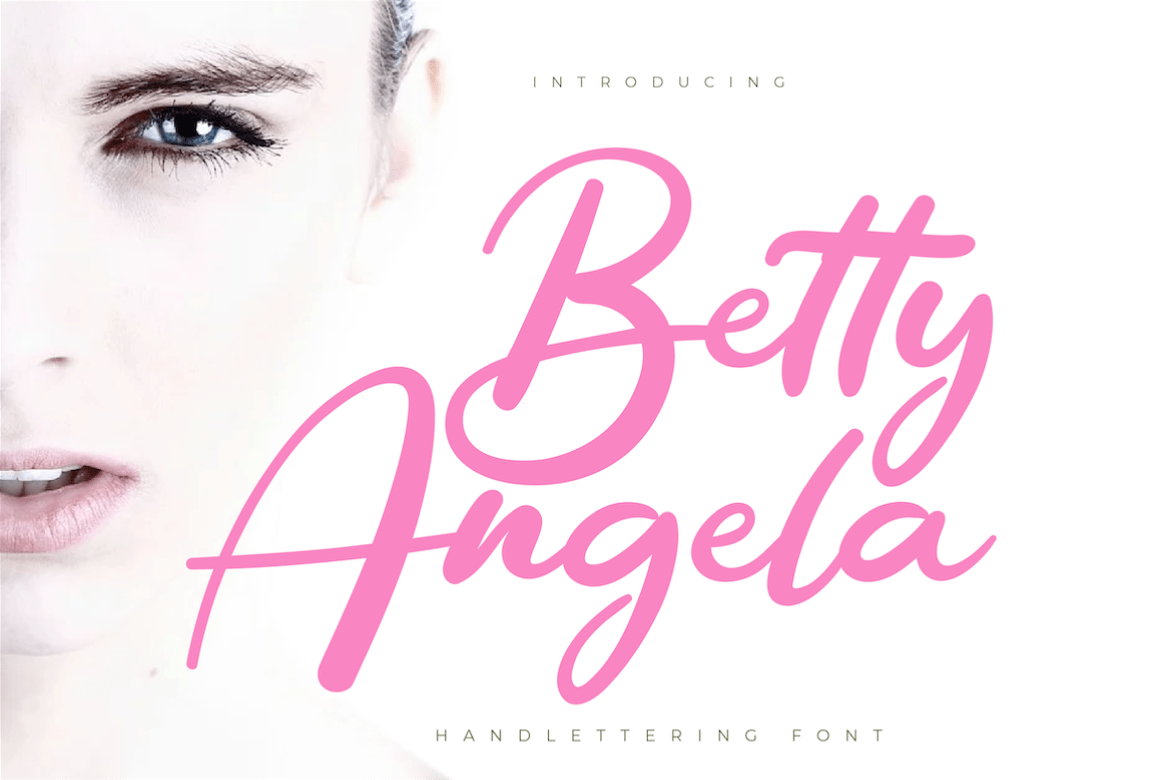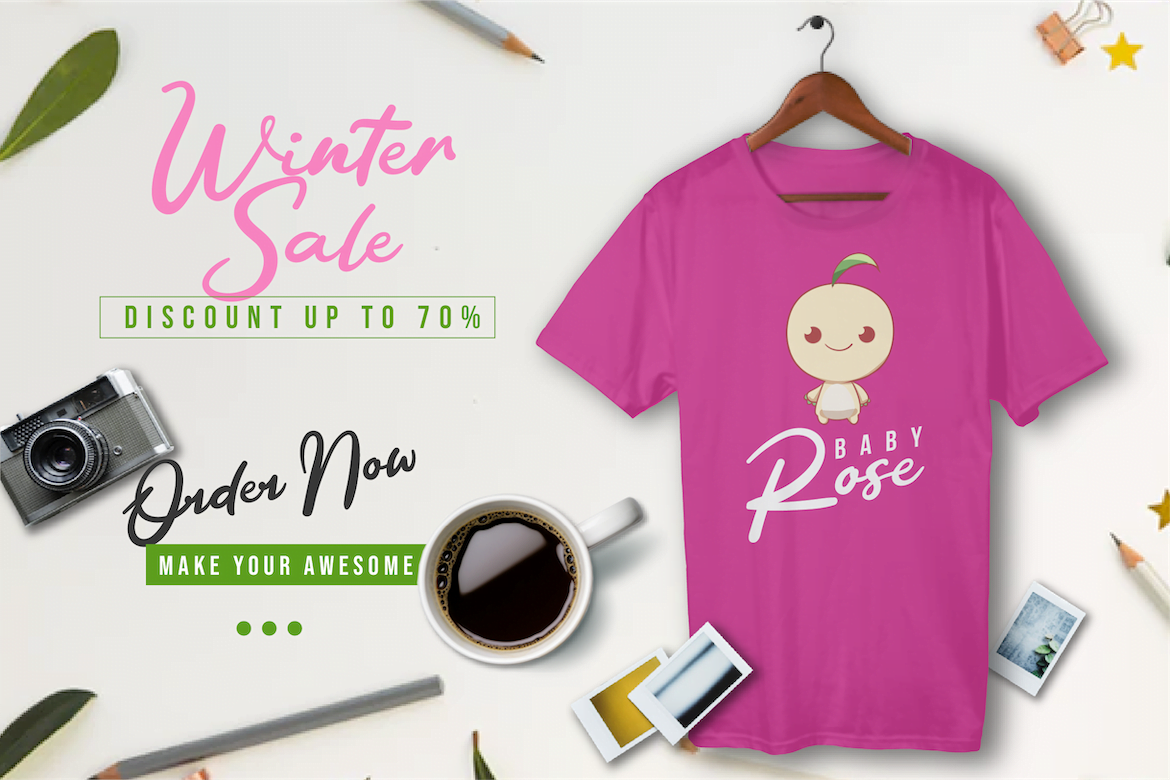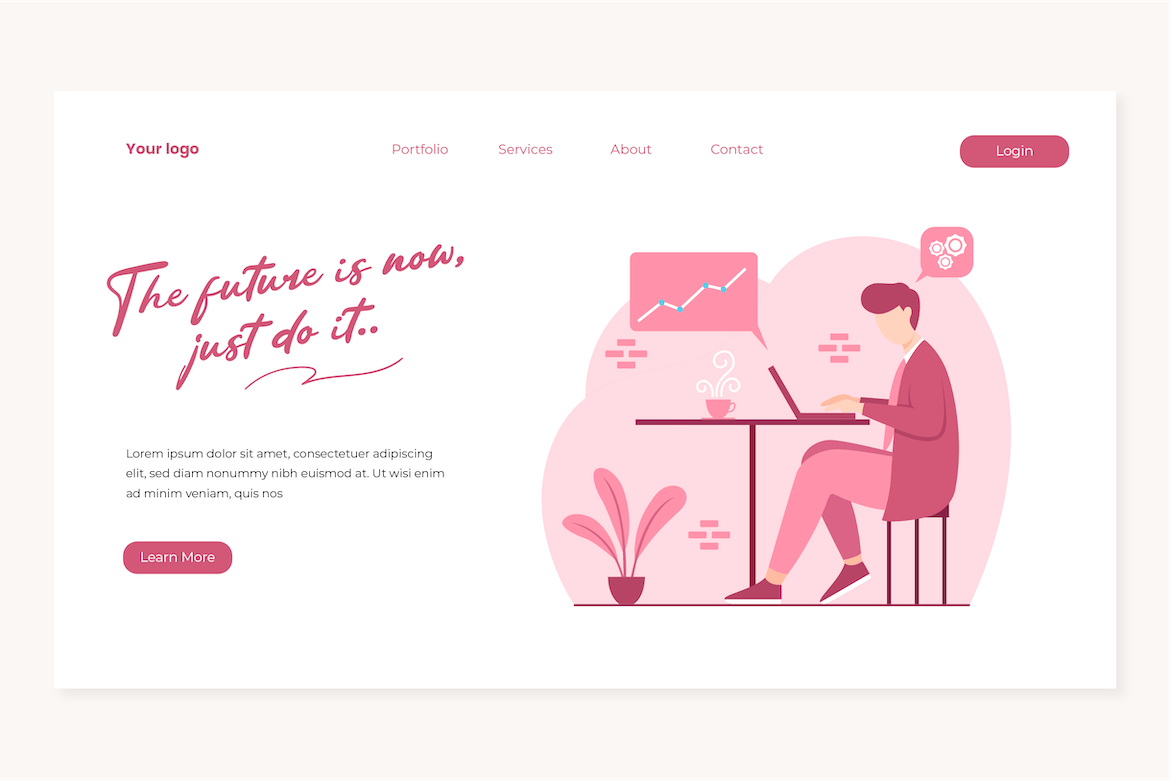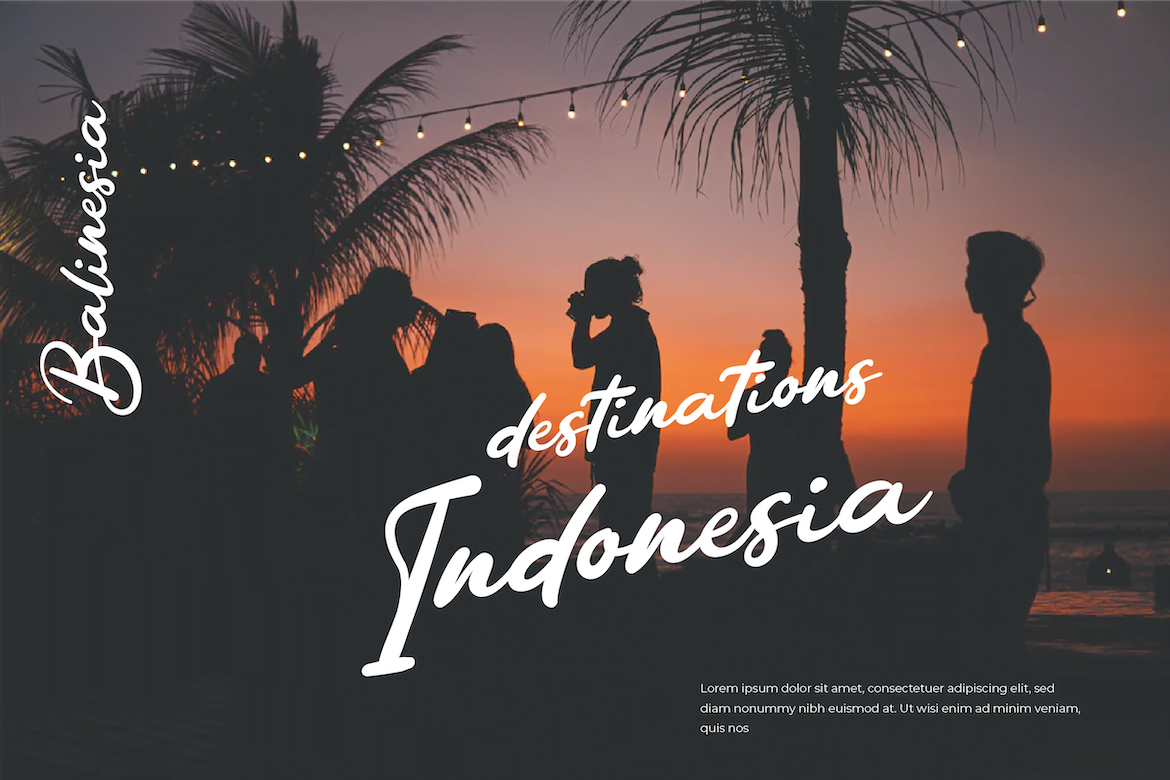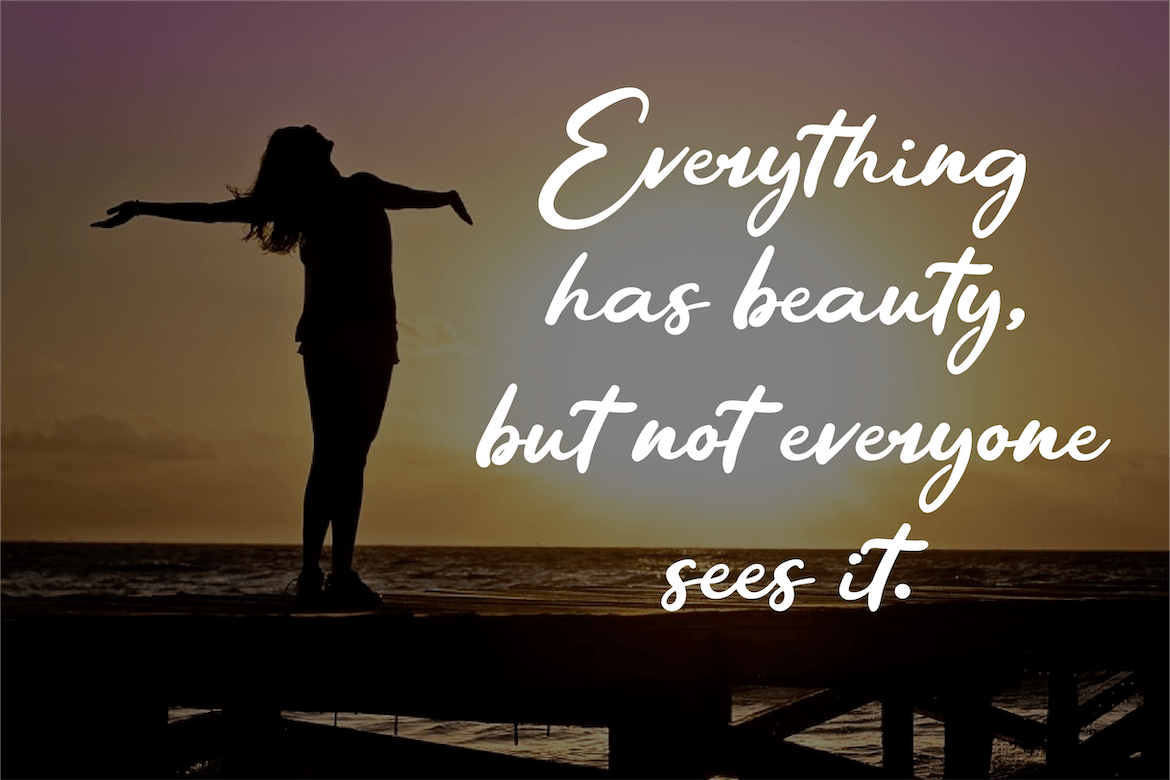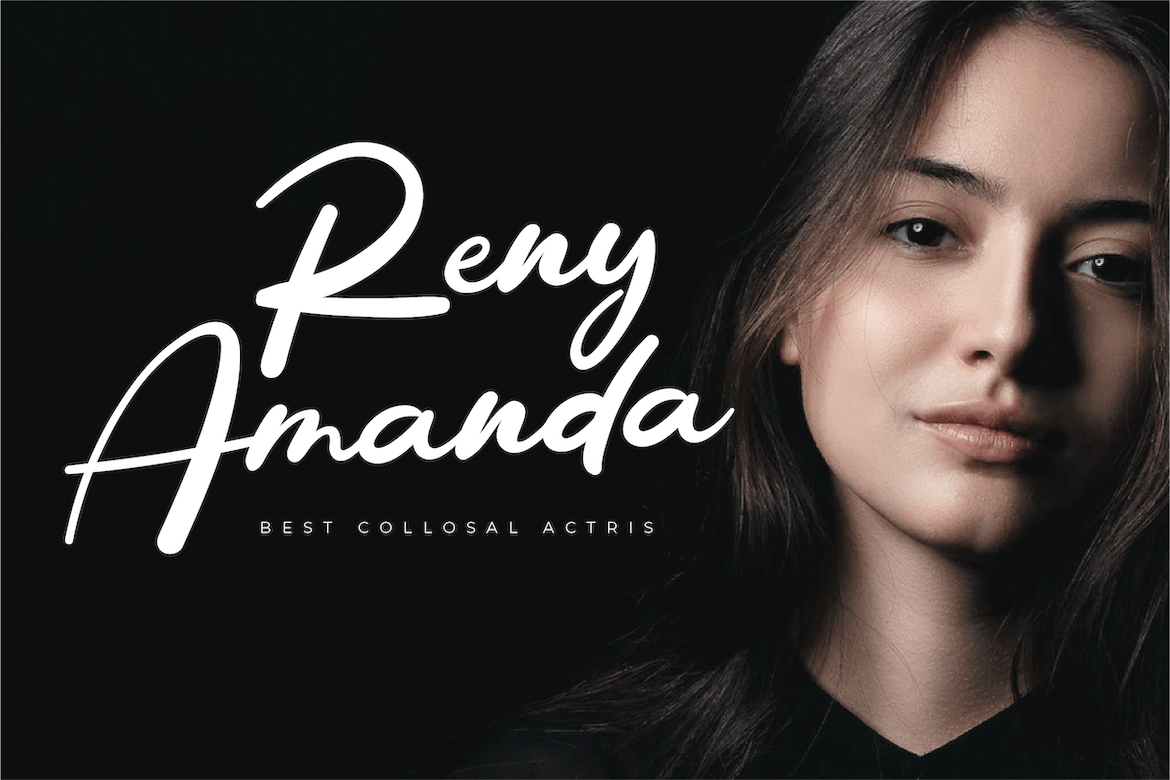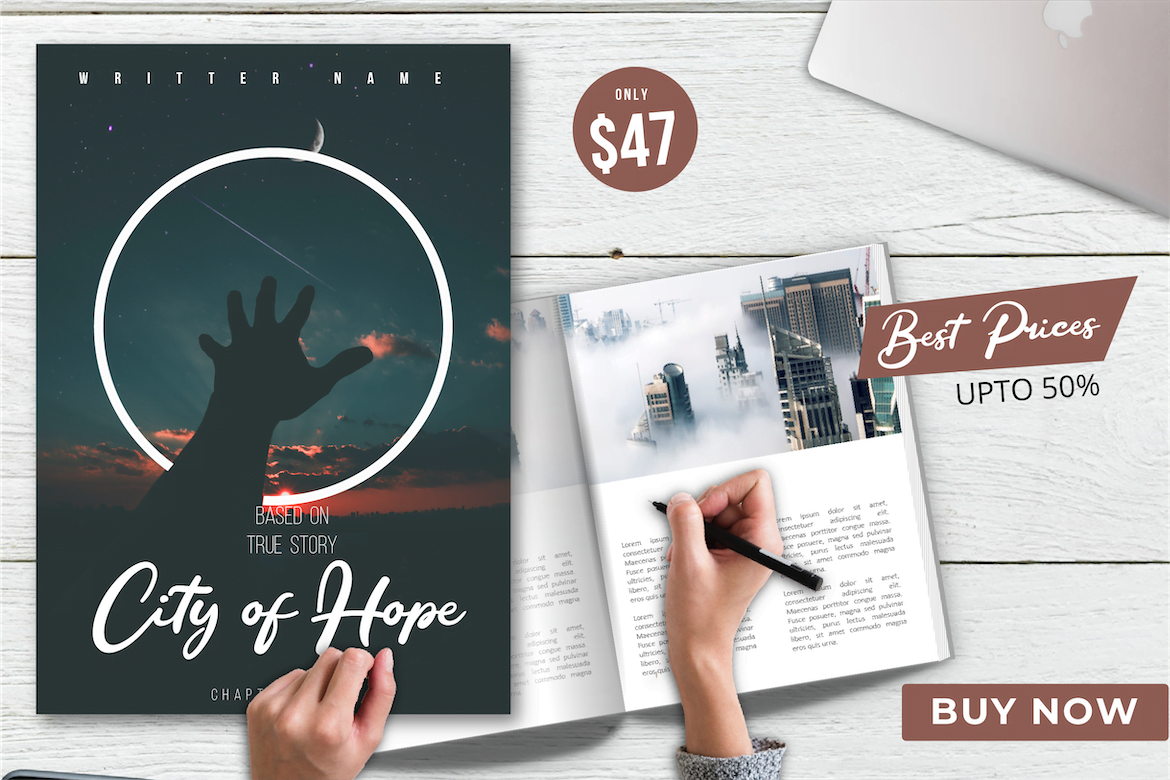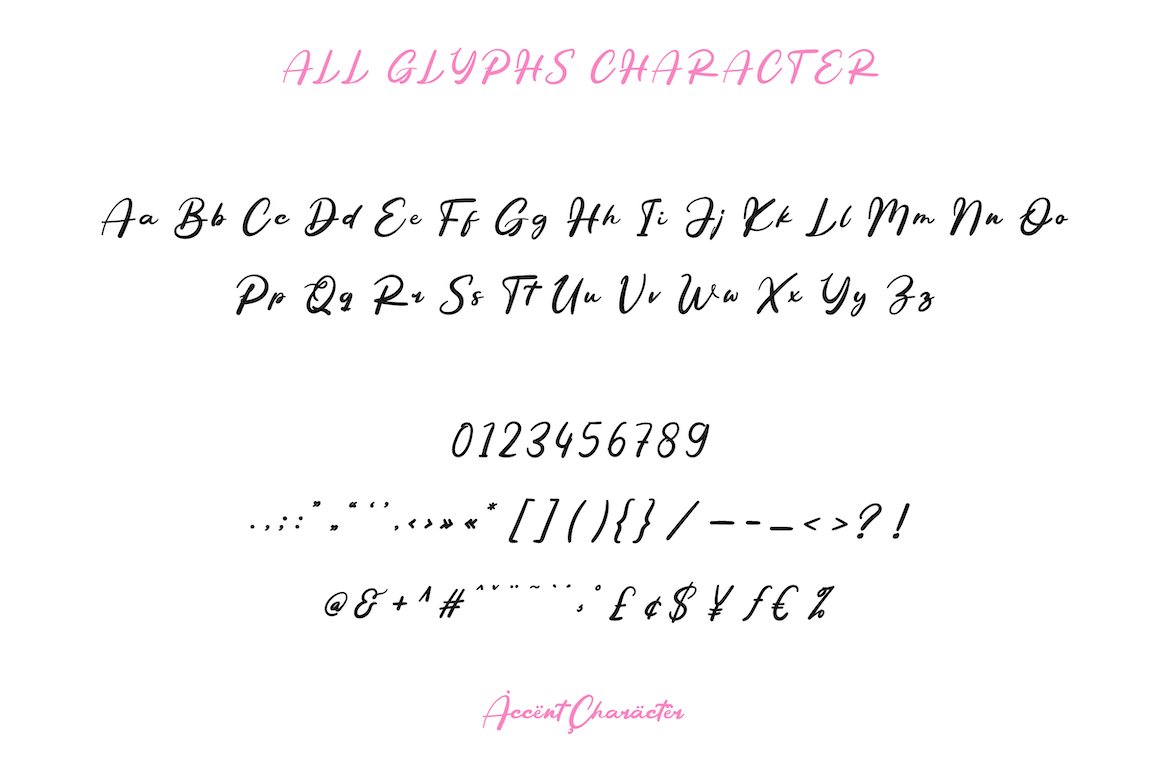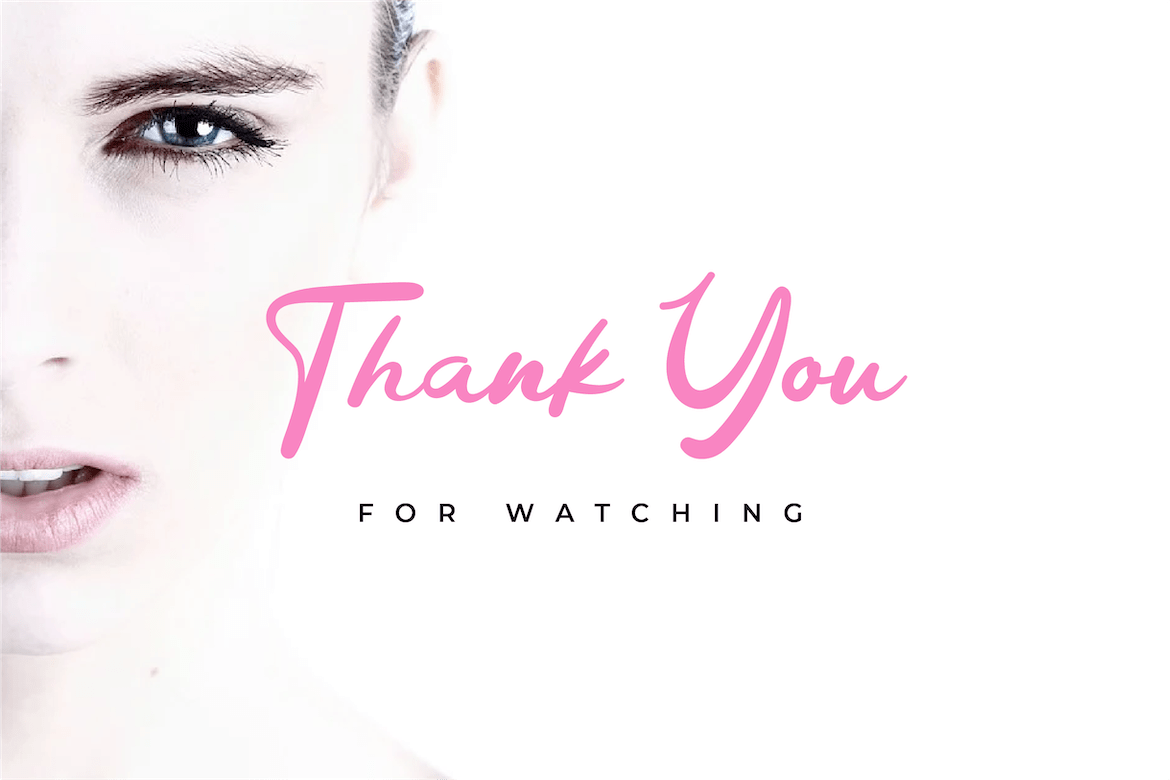
- Betty Angela
Betty Angela feels equally charming and elegant. It looks stunning on wedding invitations, thank you cards, quotes, greeting cards, logos, business cards, and every other design which needs a handwritten touch.
This font is designed with a natural touch of handwriting which is refined to create a portion and composition that suits your needs. So this font is suitable for craft, children’s writing, adventure posters, food banner titles, wedding invitations, product packaging logos, quotes, social media page covers, furniture banner headlines, book covers, and much more.